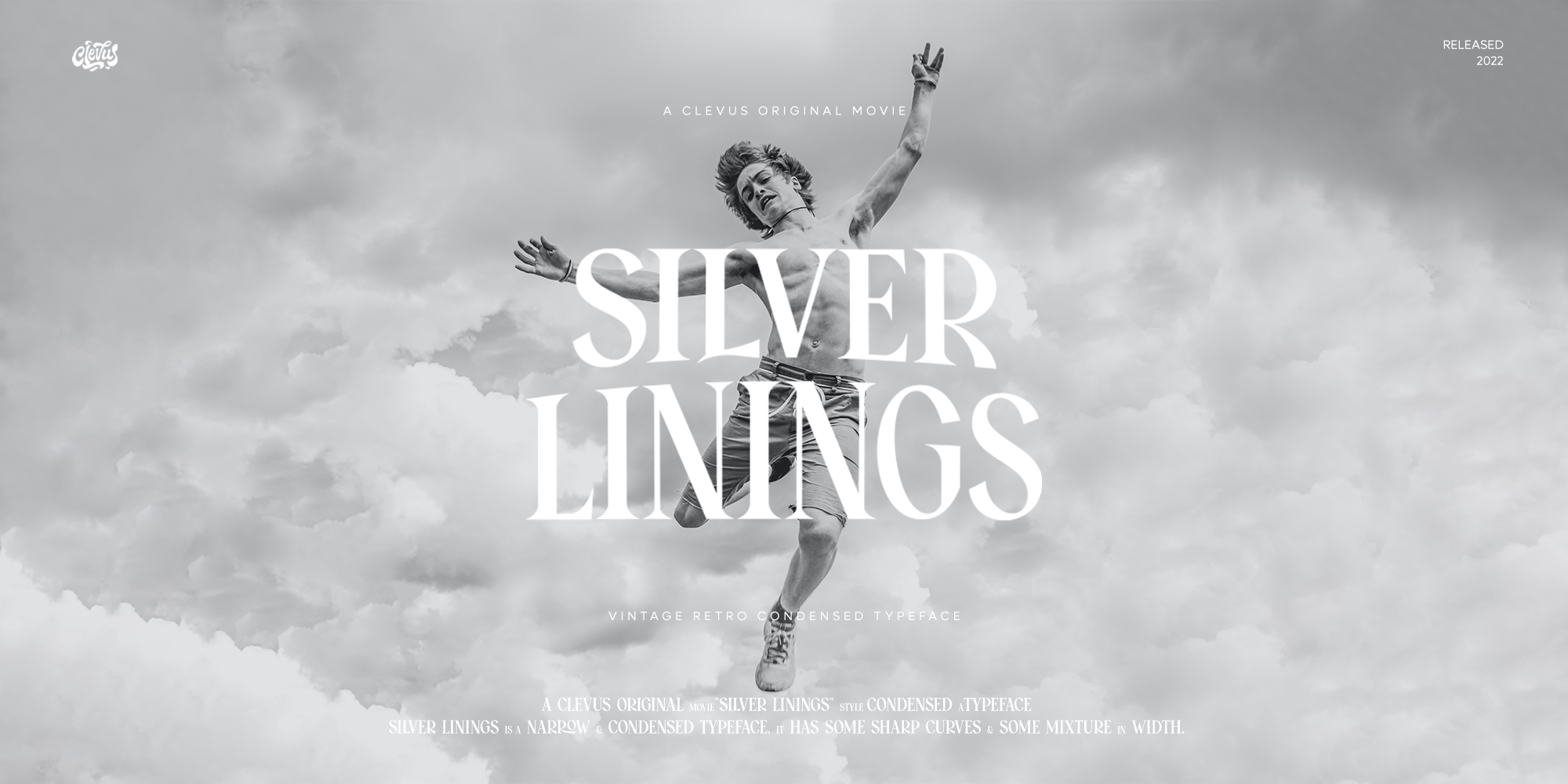
This elegant and uplifting typeface is perfect for motivational posters, wedding invitations, lifestyle branding, greeting cards, and inspirational social media posts. It adds a sense of hope, lightness, and sophistication to any design project.
What makes Silver Linings Font so exciting is its graceful curves, smooth flow, and balanced letterforms that convey optimism and warmth. The font’s refined style makes it suitable for both headline use and decorative accents, delivering a polished yet heartfelt feel.
The Silver Linings Font family includes various styles such as Regular, Italic, and Bold, providing flexibility for different design needs. It supports uppercase and lowercase characters, numerals, punctuation, and multilingual characters, ensuring versatility across projects.